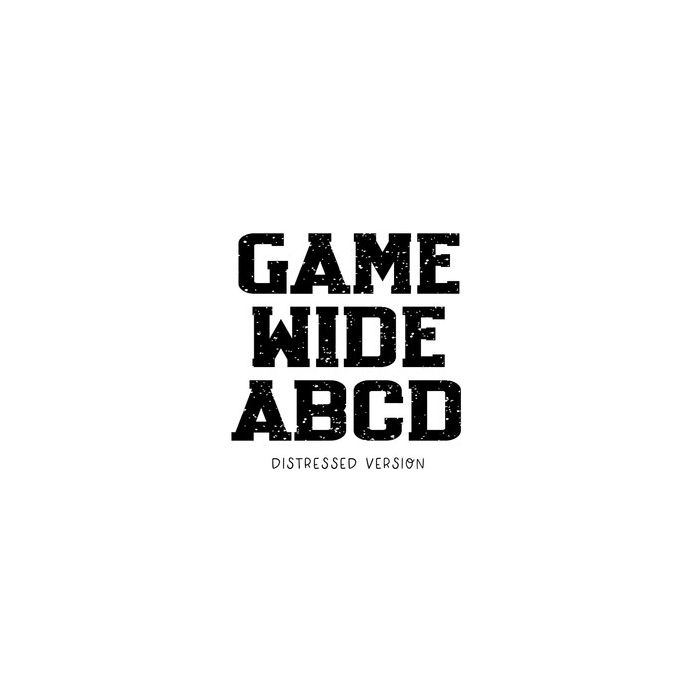
BFC Game Wide Distressed Sports Jersey Football Font
Game Wide Distressed is a textured sporty font. Please note, this font does not include numbers! Only A-Z.